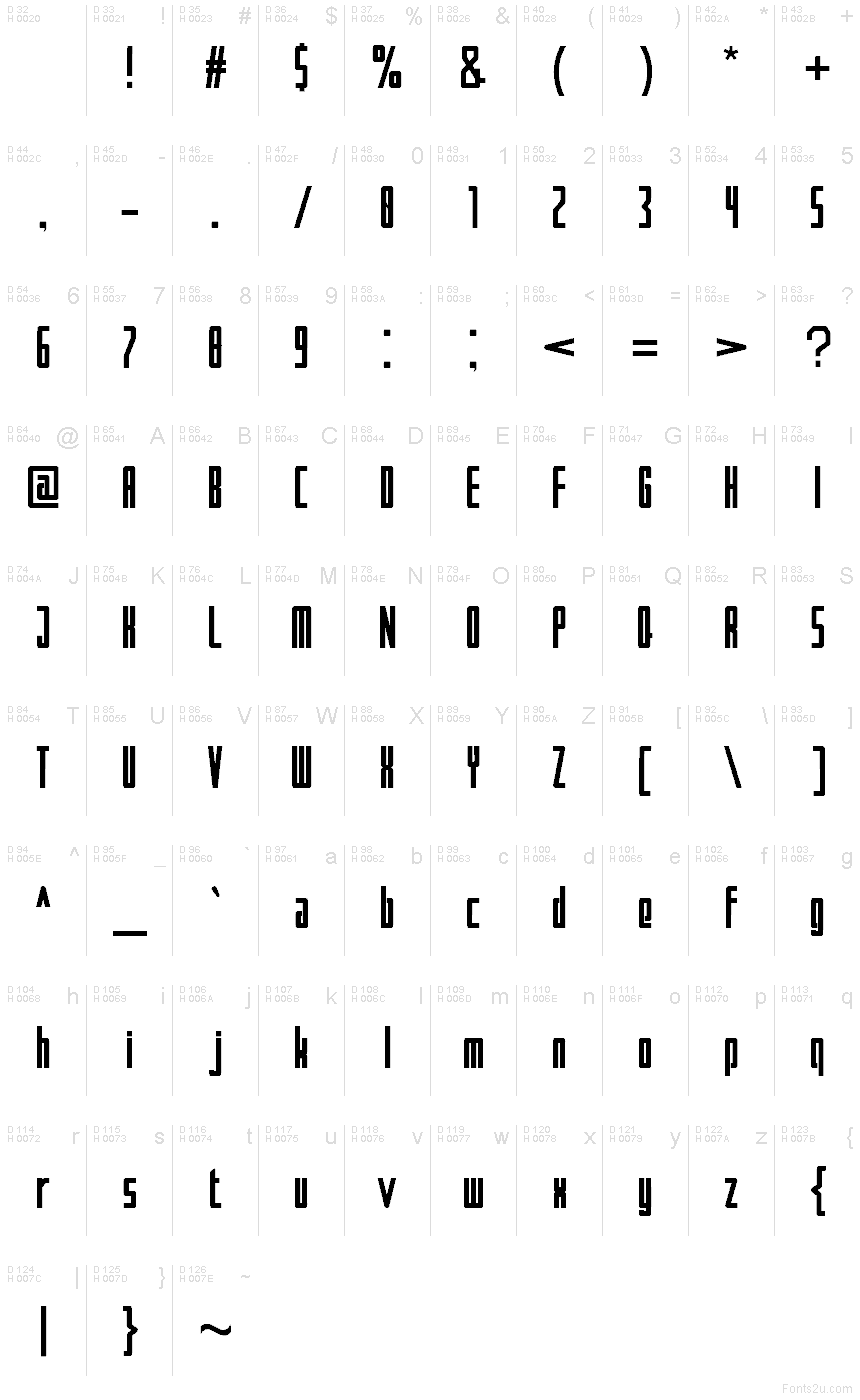
APEINZ
Apeinz font by Arif Purnomo effortlessly harmonizes geometric shapes into a condensed sans serif masterpiece. Delivering through clean lines and a minimalistic, modern design, this condensed font is ideal in all examples where the main goal is to stand out and make users take their time digesting written content.
A free sans serif font like this one has many great applications: book headings, headers on posters, newspaper and magazine titles, advertisements for prominent brands or products such as perfumes. Moreover, it makes sense to be used in logo designs with a strong presence as its biggest characteristic.